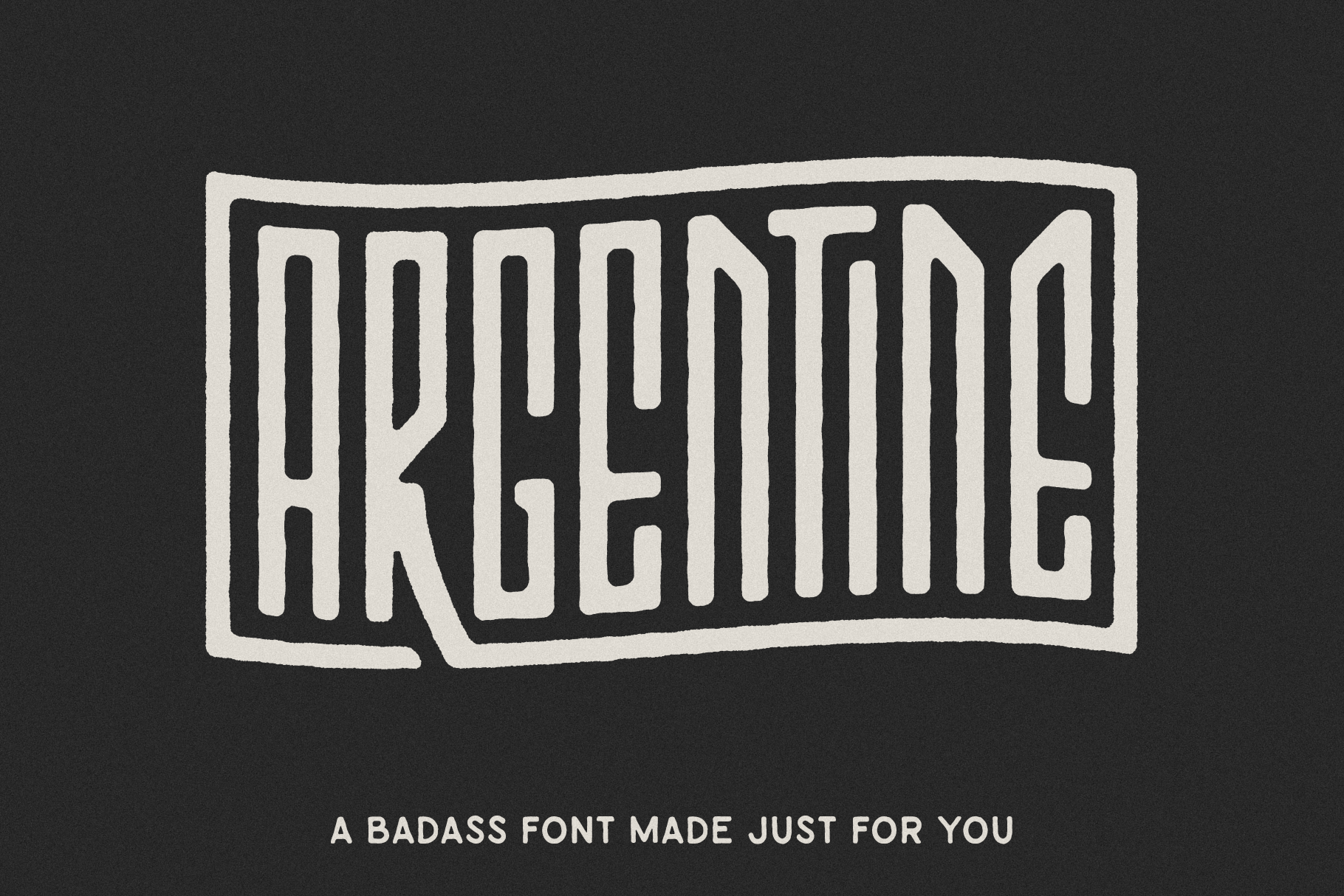
ARGENTINE FONT
Argentine is a linear condensed font built to work seamlessly together with every letter and number. It's a throwback to a time when product contained typography that had the perfect blend of character meets function. Argentine is the just the font you need for logos, posters, t-shirts, typography designs, and much more.